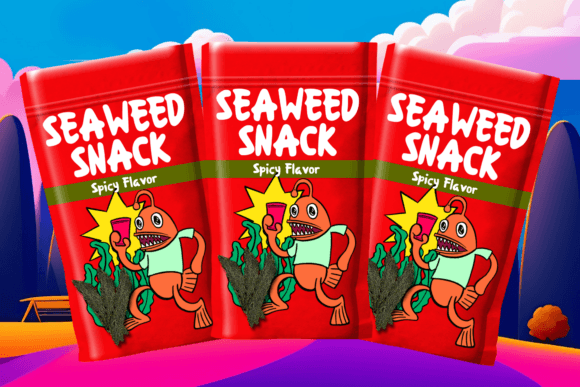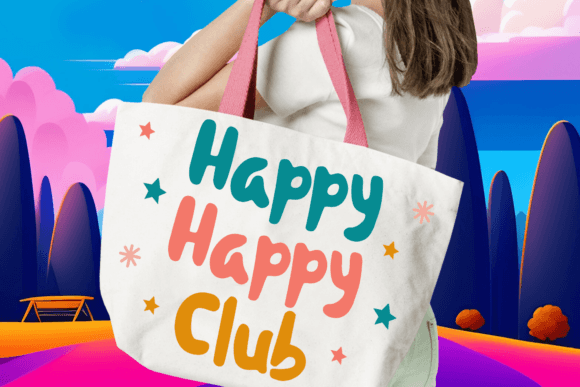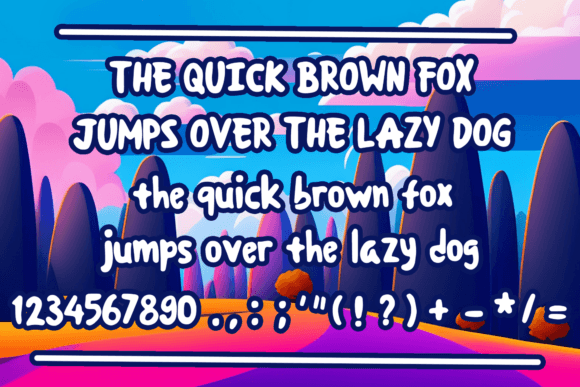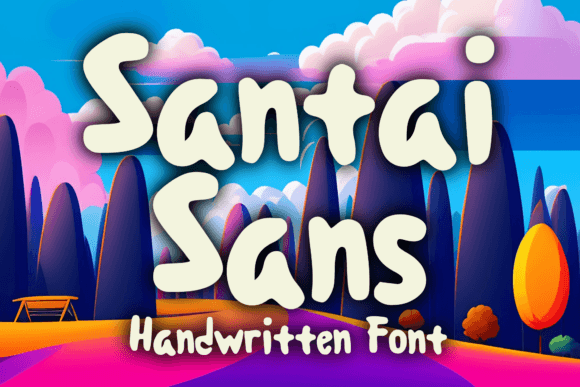
Introduction to Santai Sans Font
Santai Sans is a fun and cute handwritten font.
It will elevate a wide range of design projects to the highest level You can use this font for many design ideas such as stickers, t-shirt designs, amazing logo designs, magazine or book covers, comics, cartoon drawings, daily typing, and many more.
Key Features of Santai Sans Font
Why Choose Santai Sans Font?
Santai Sans Font offers exceptional quality and versatility, making it a valuable addition to your design toolkit. Whether you’re creating for personal projects or commercial use, Santai Sans Font delivers professional results.